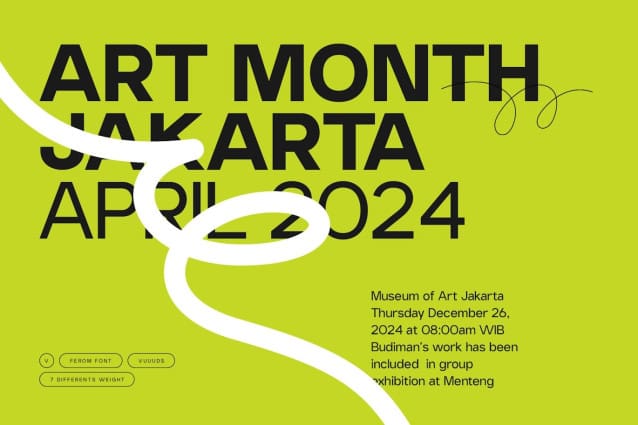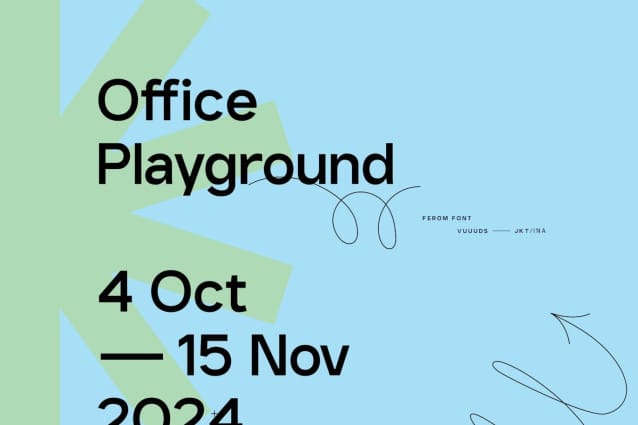
Ferom Font Family
Ferom Font Family is a modern sans serif system with 7 different weights, each letter has been uniquely designed.
Foreign language support: àÁâãäåæçèééëìííïðñòóôõööøúúúúýàáââãäåæçèééëìííïðñòóôõöøúúúüýÿ ߀£¥Œšÿ¢ŒšŽ©